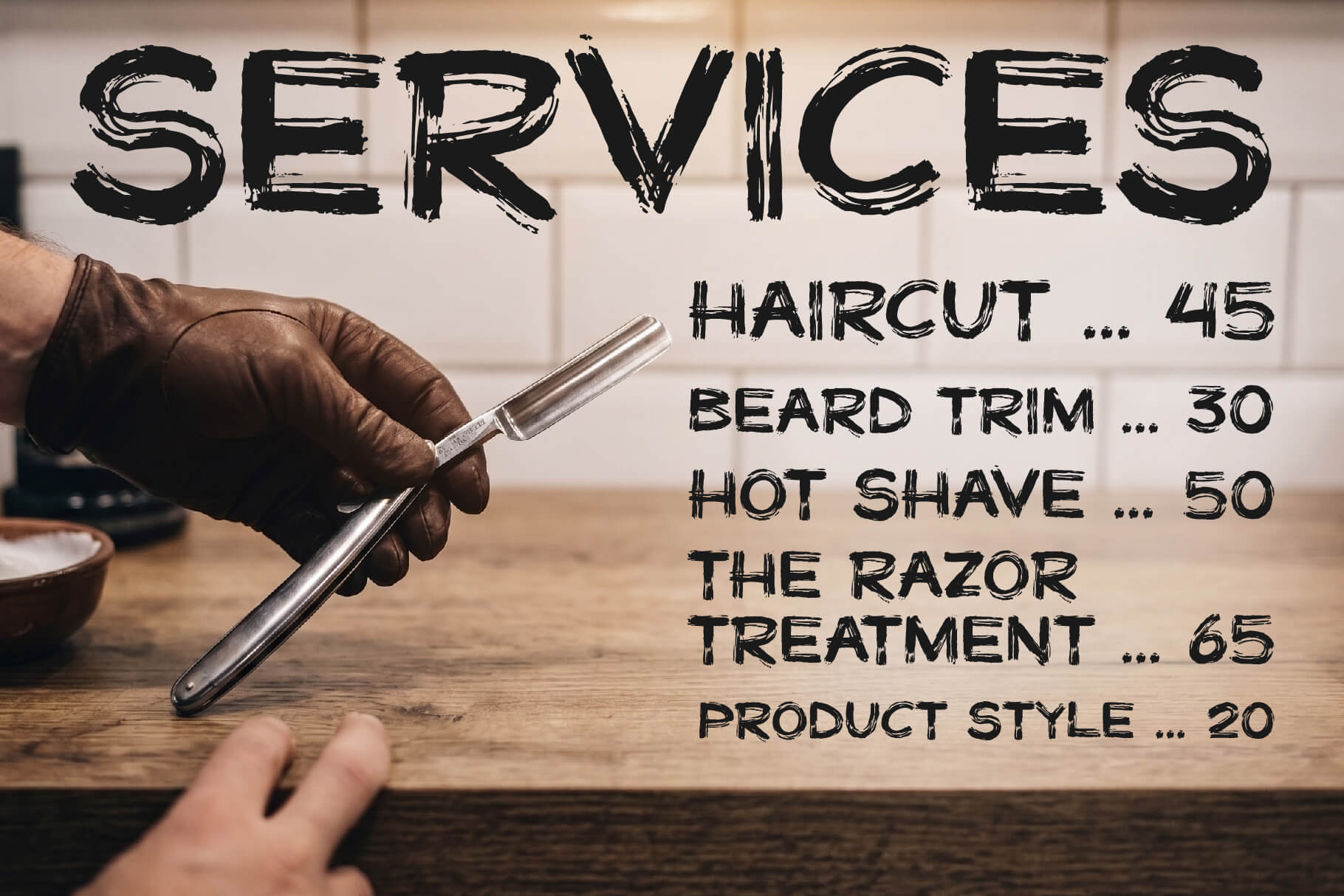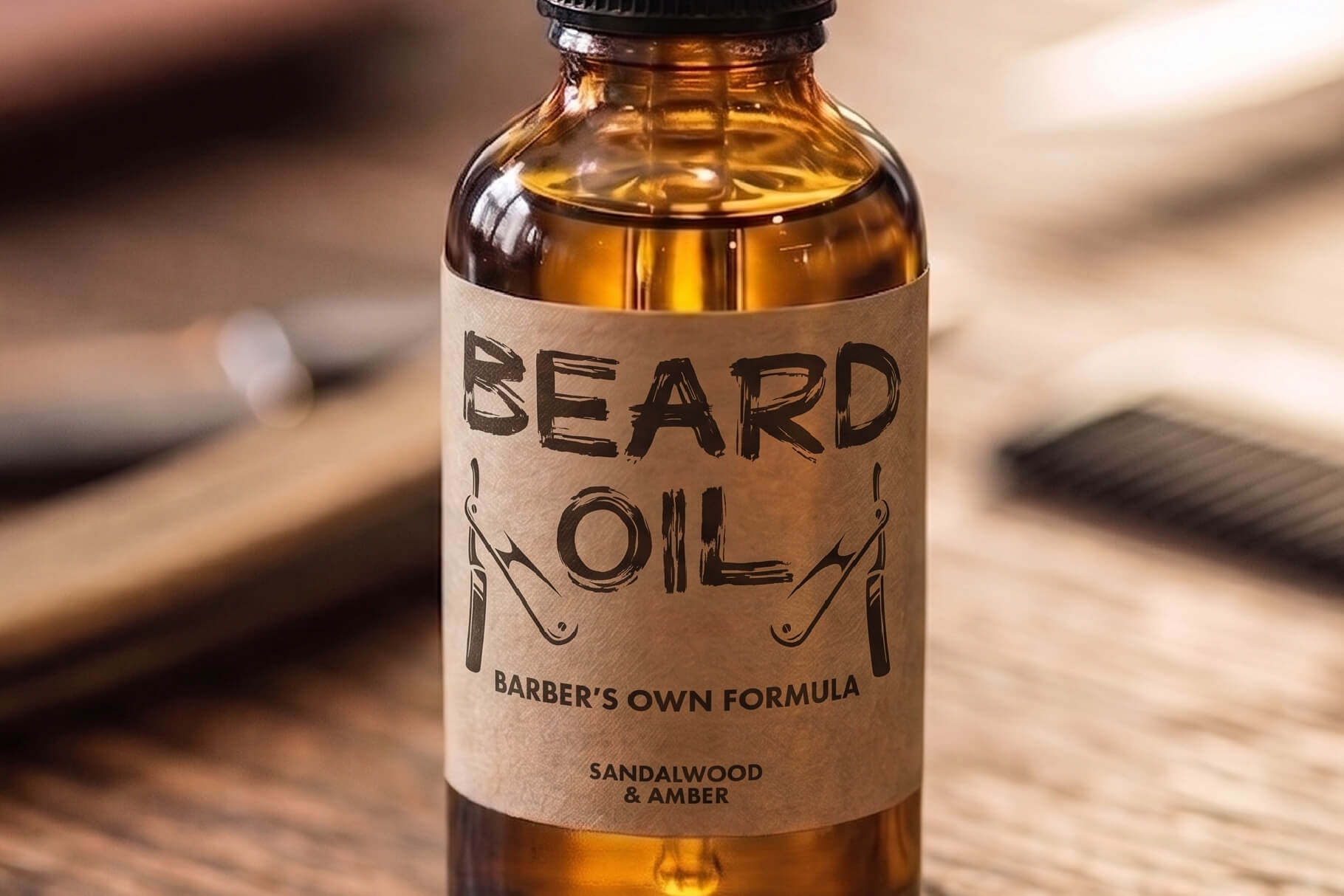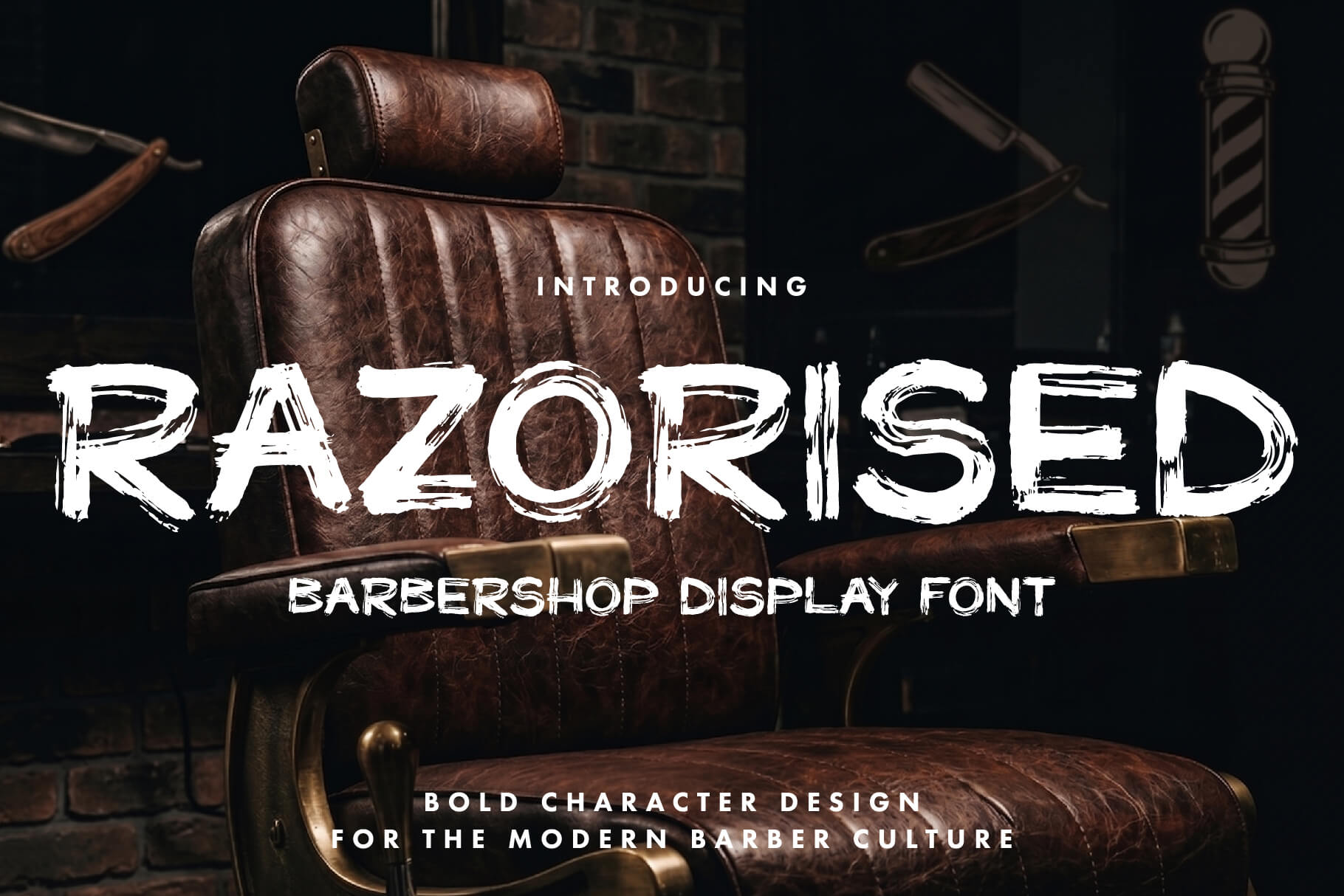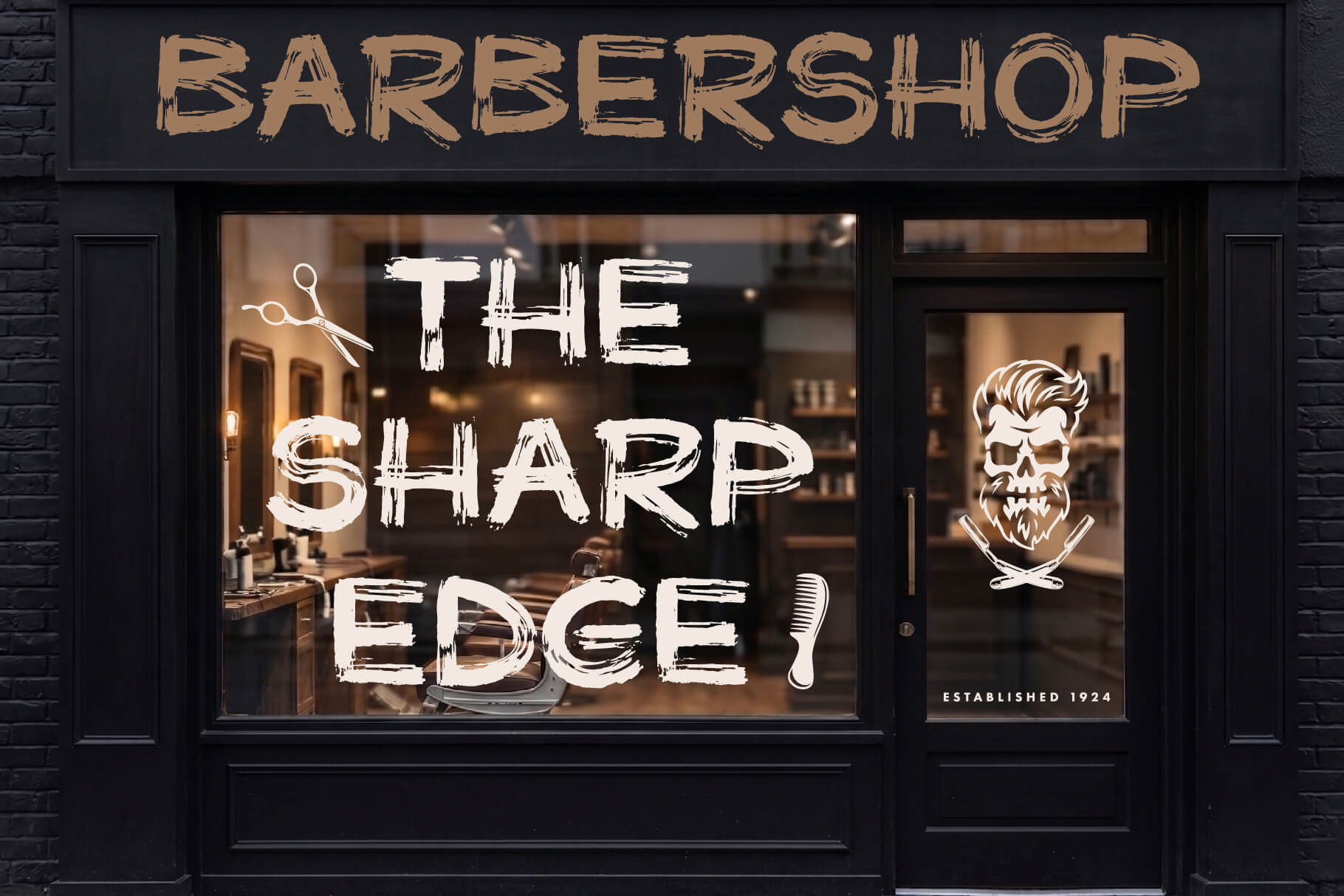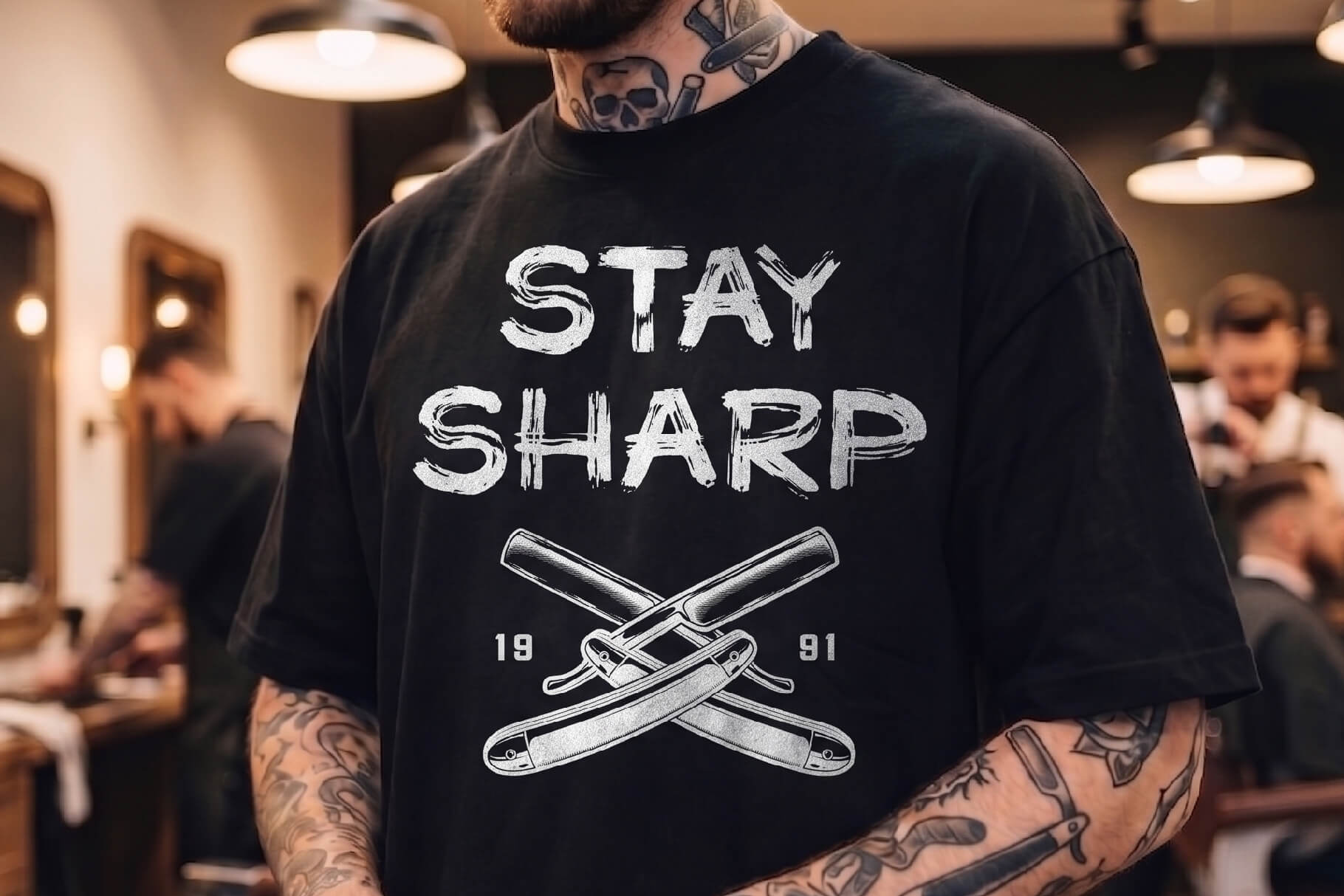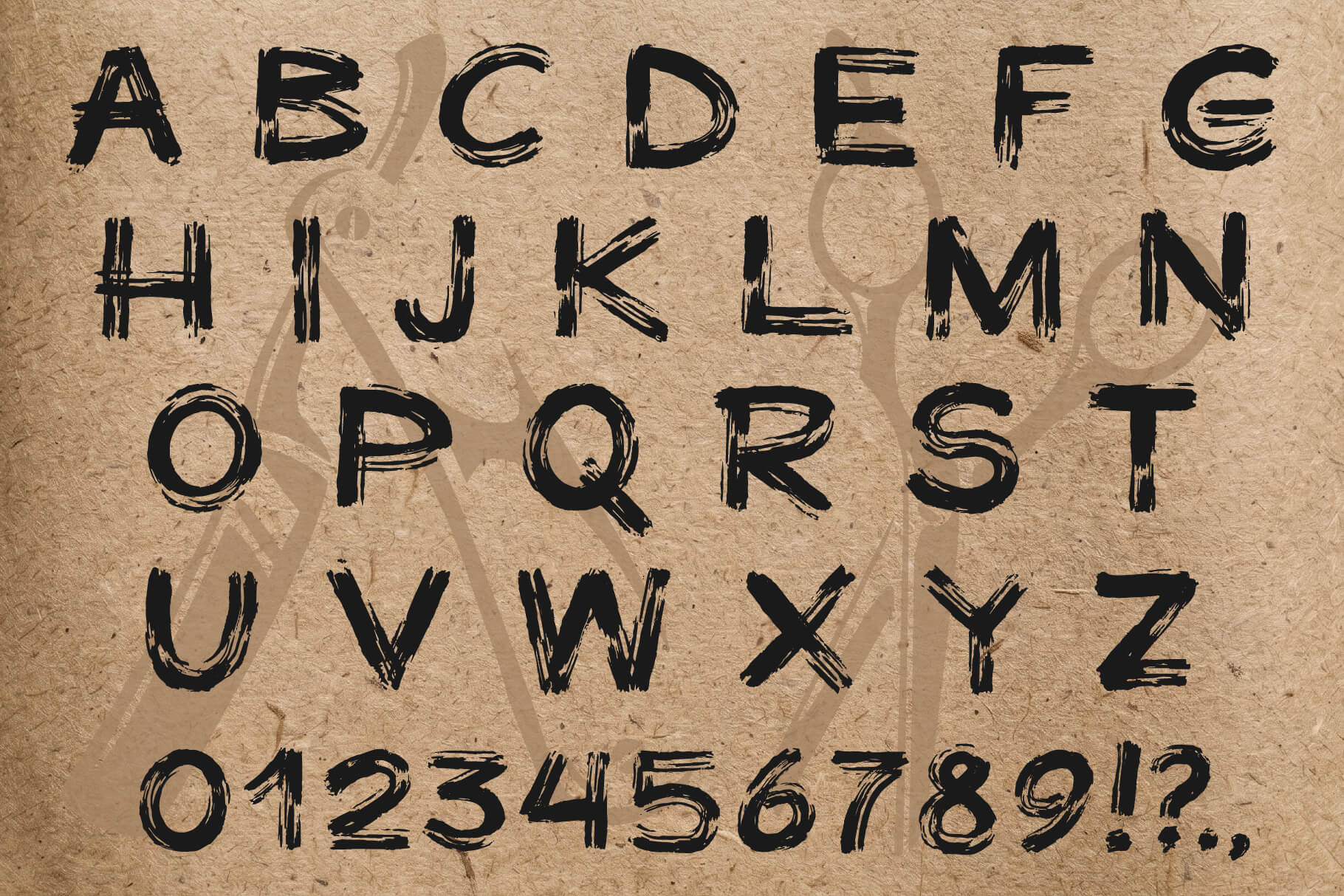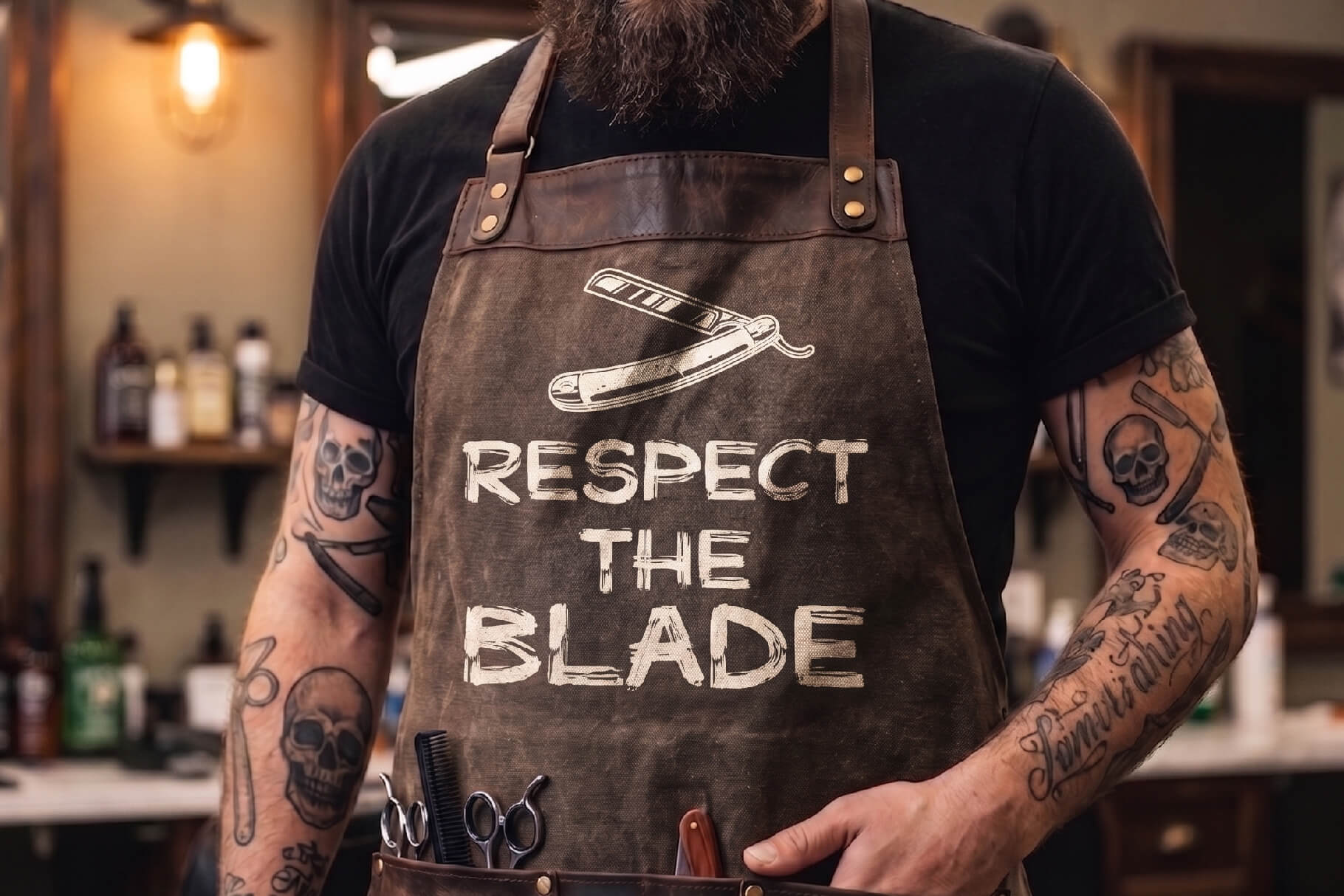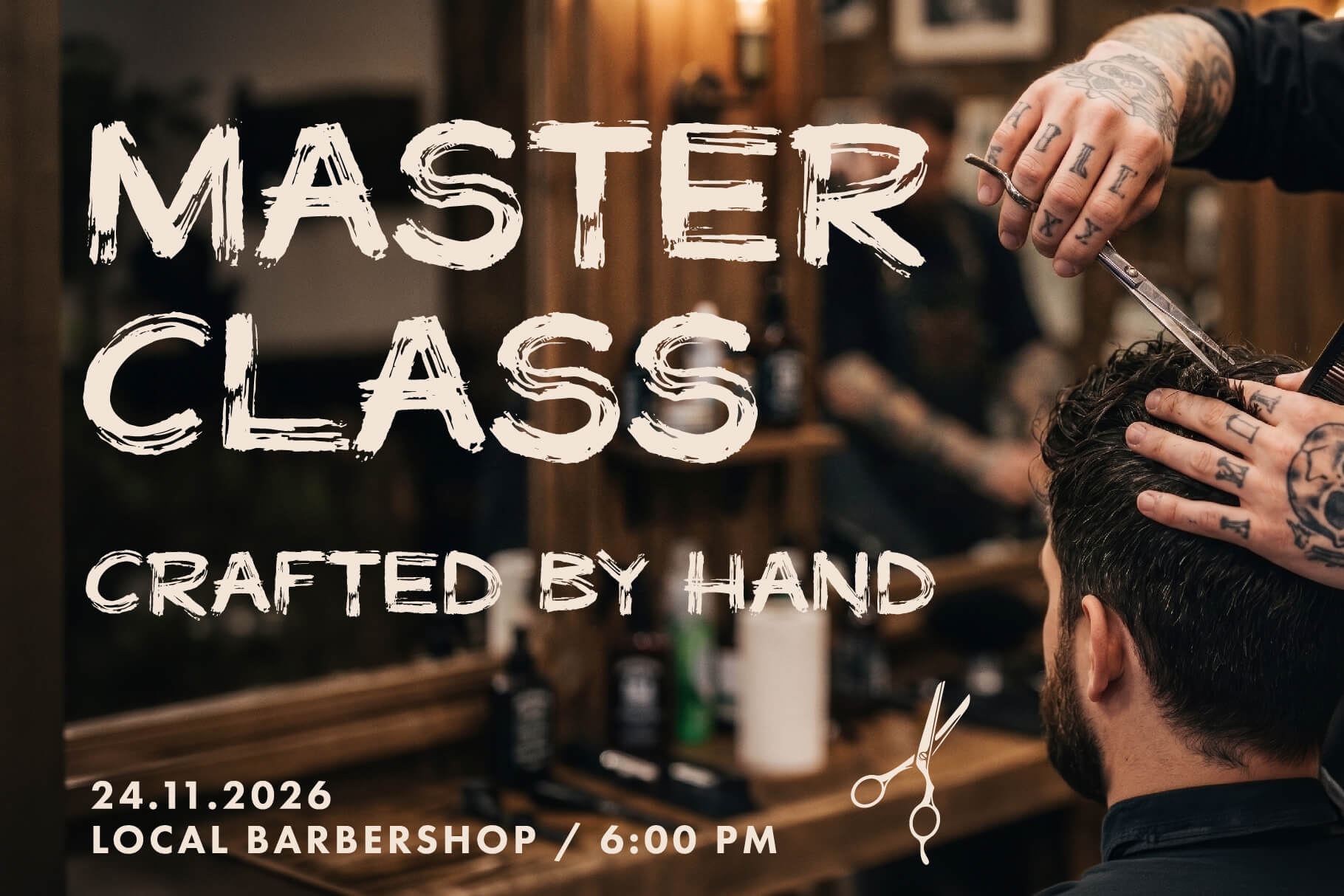
RAZORISED display font
RAZORISED is a sharp, aggressive display typeface with a razor-edged attitude.
Its cutting, angular letterforms bring a fierce, high-tension energy to any layout while staying strong and legible at large sizes.
The face gives designs an instant hard, rebellious character.
RAZORISED works especially well for metal and music branding, streetwear, tattoo art, posters and bold headlines.
IDEAL FOR
– Metal and music branding
– Streetwear and apparel
– Tattoo and merch art
– Posters and covers
– Headlines and logos